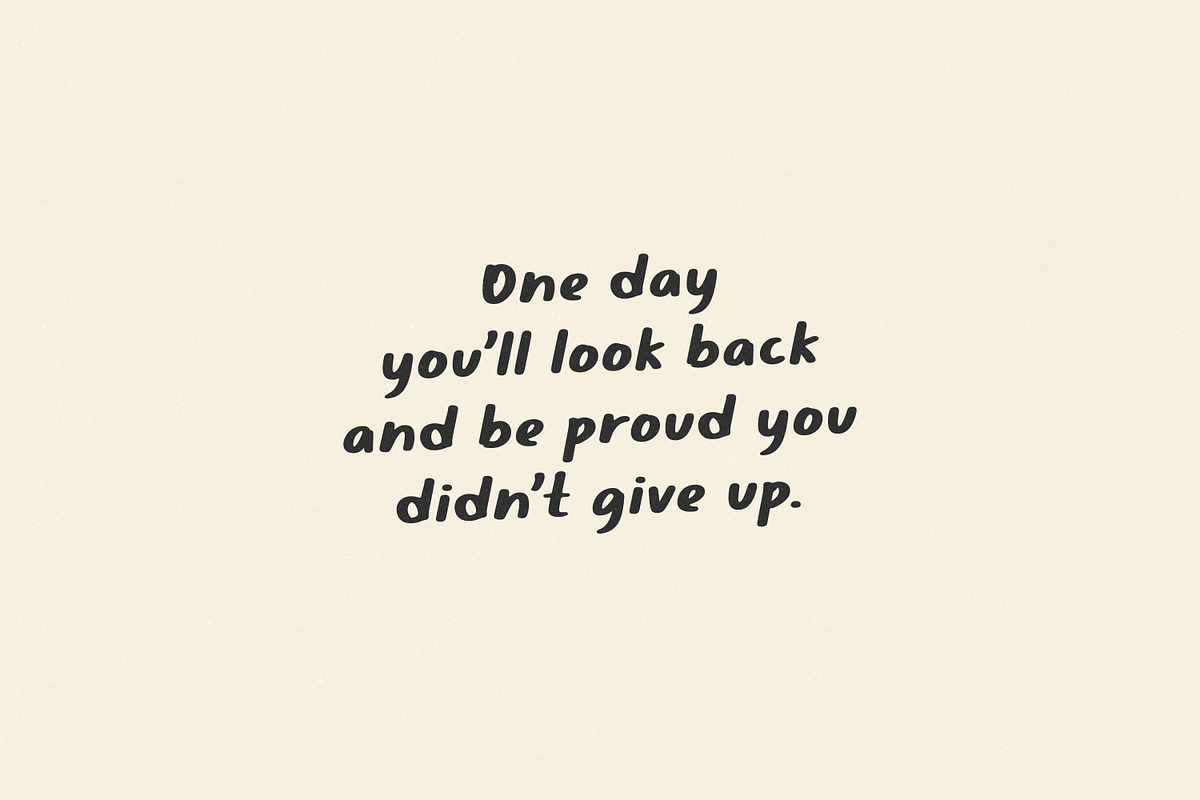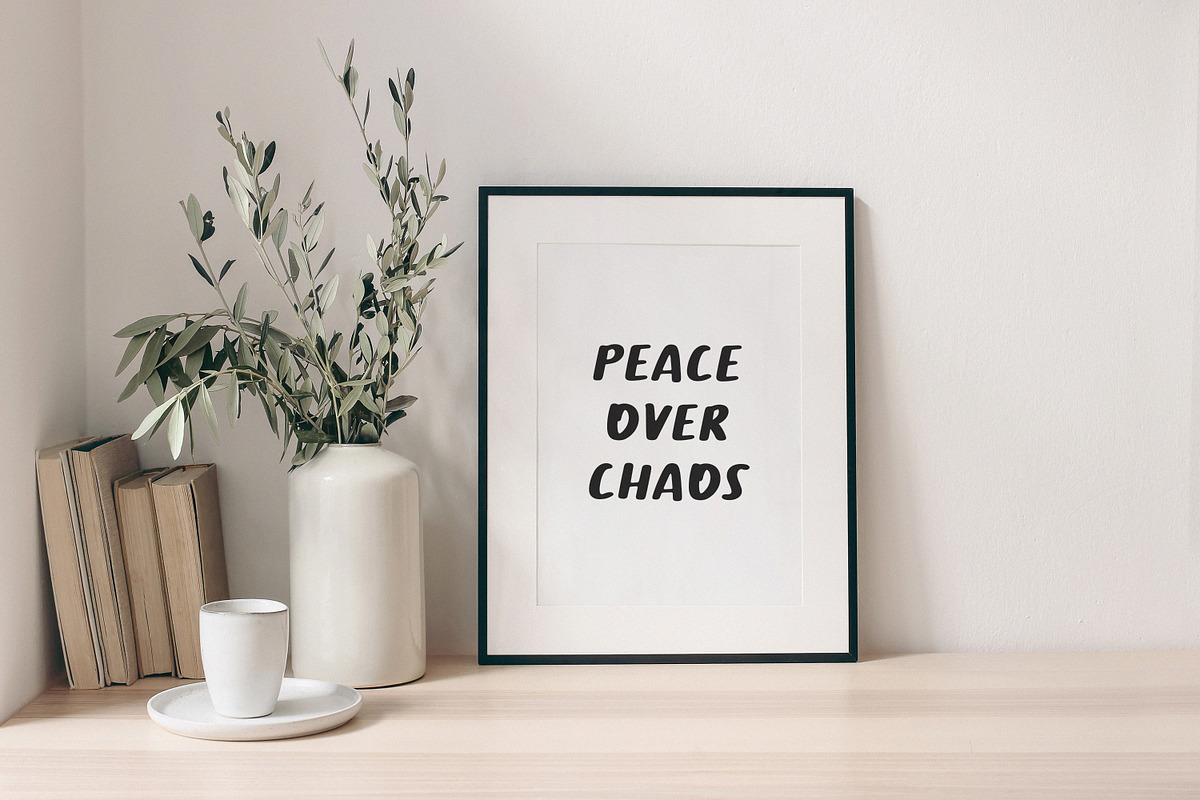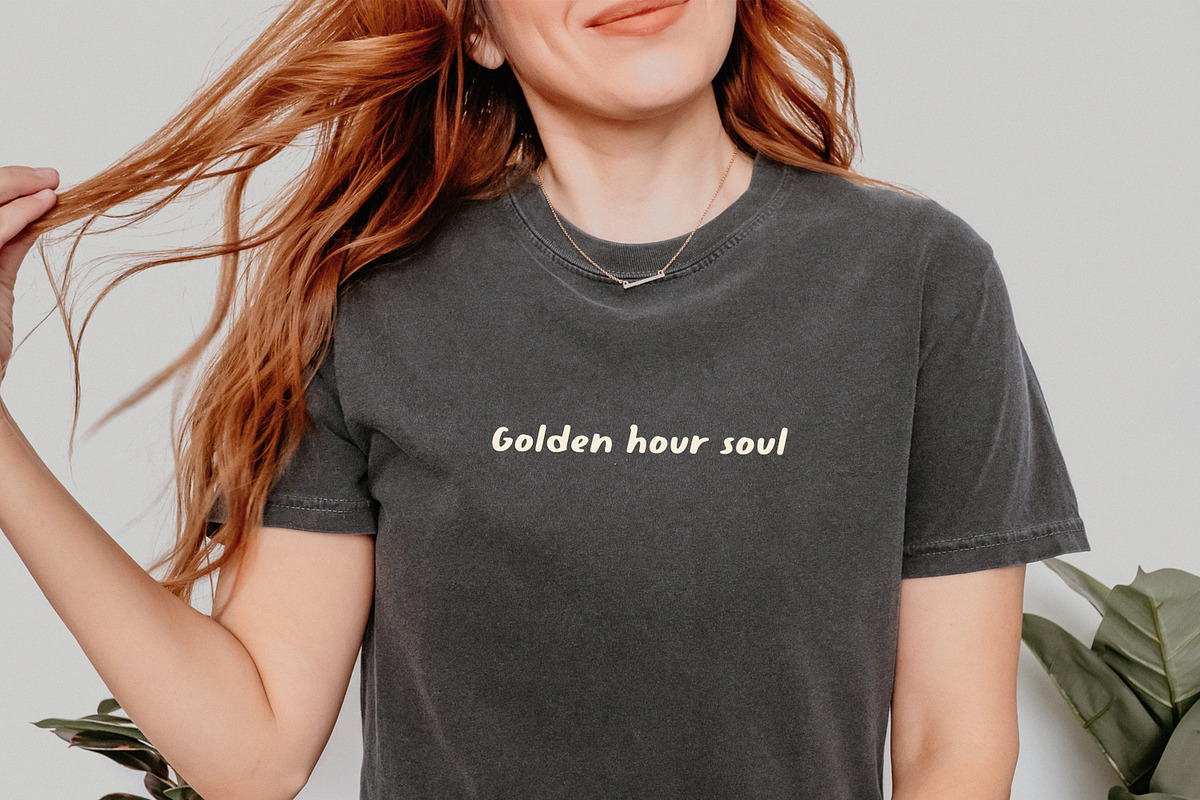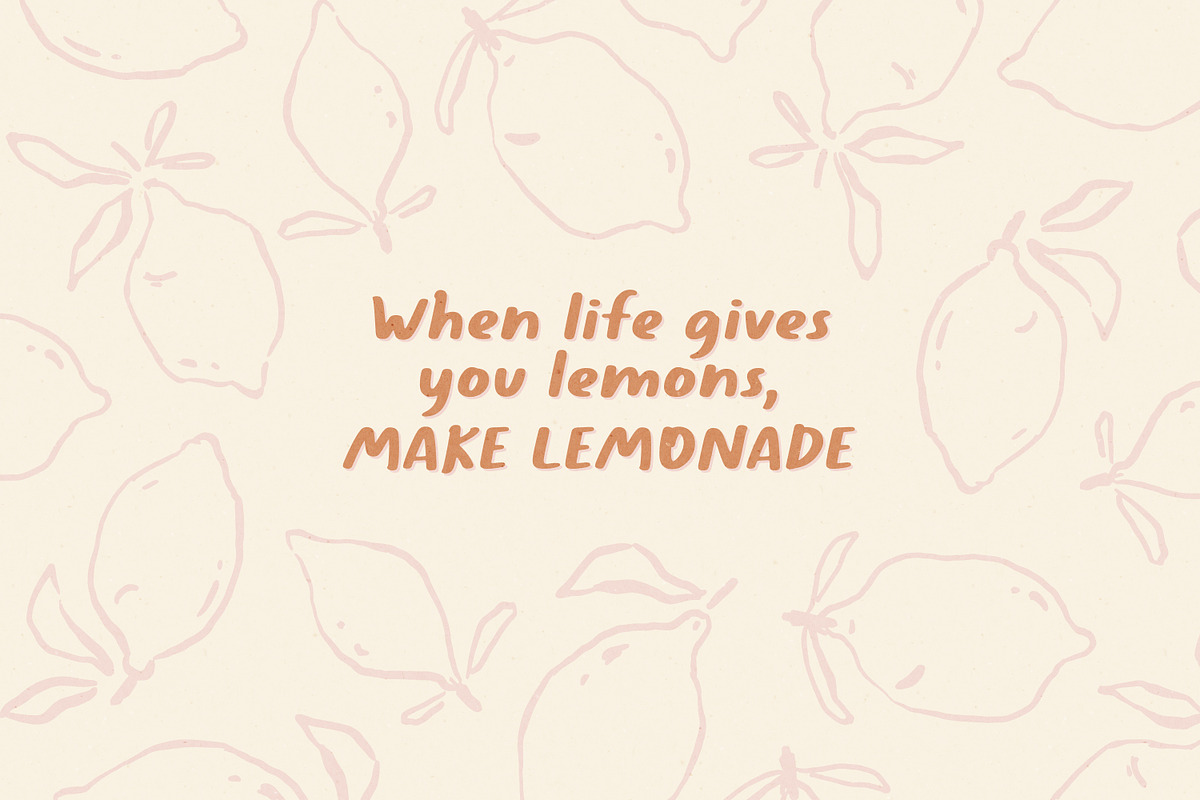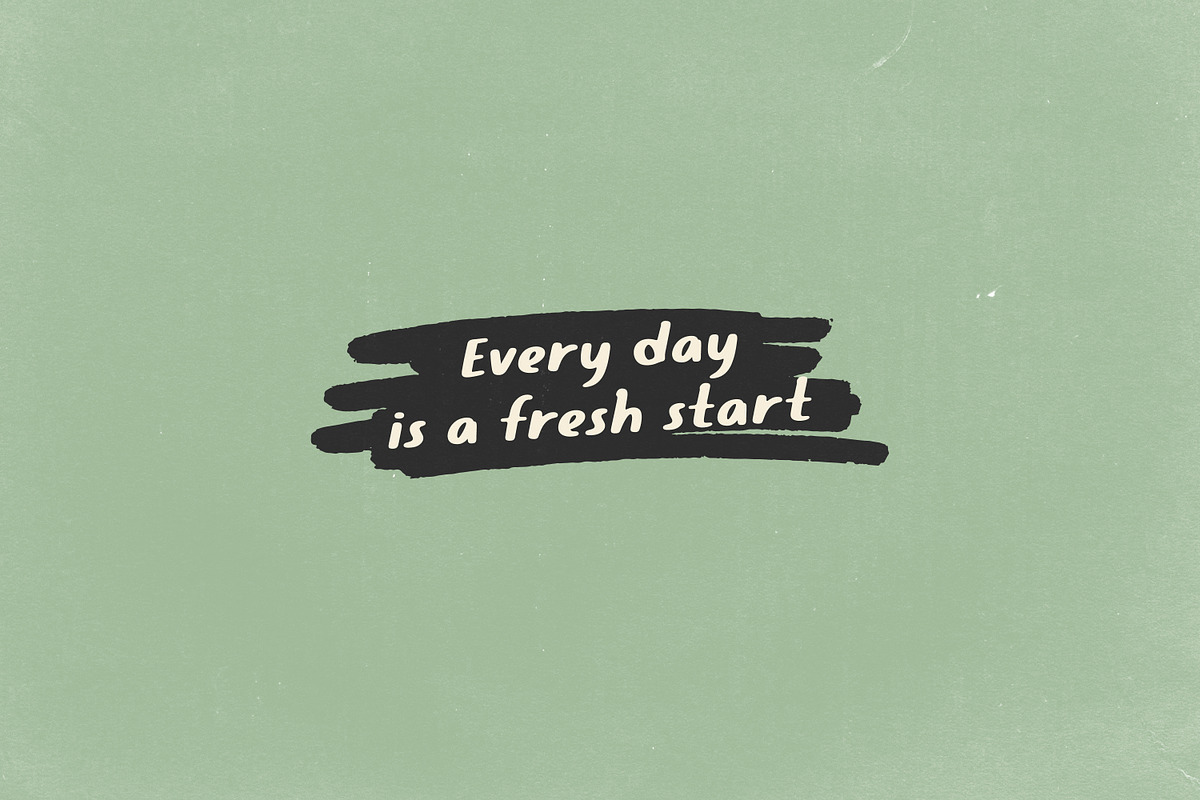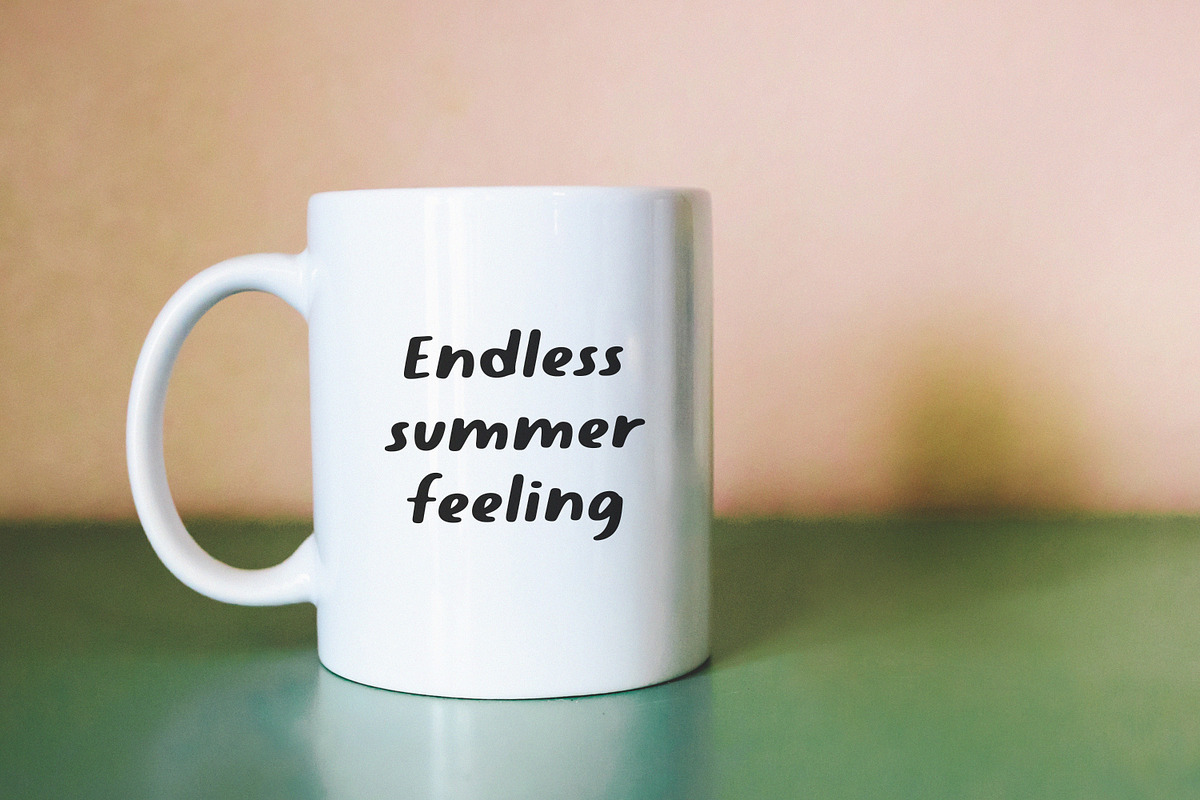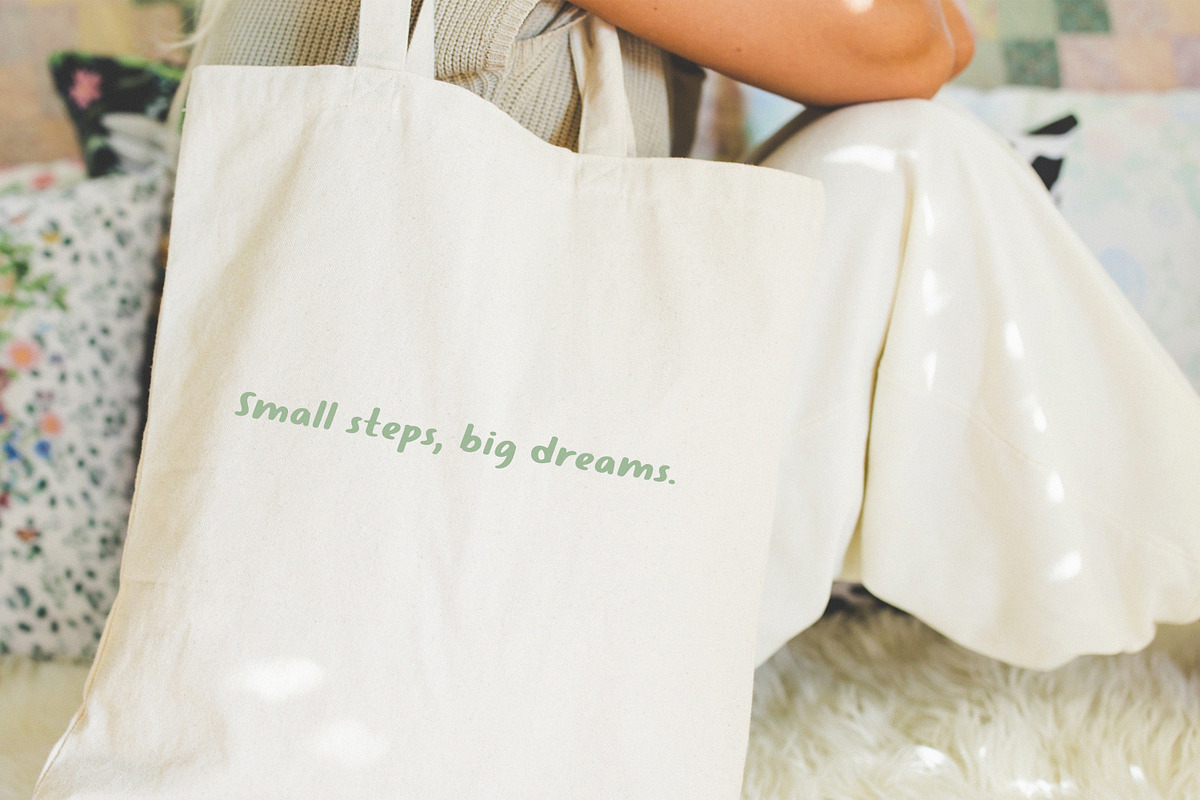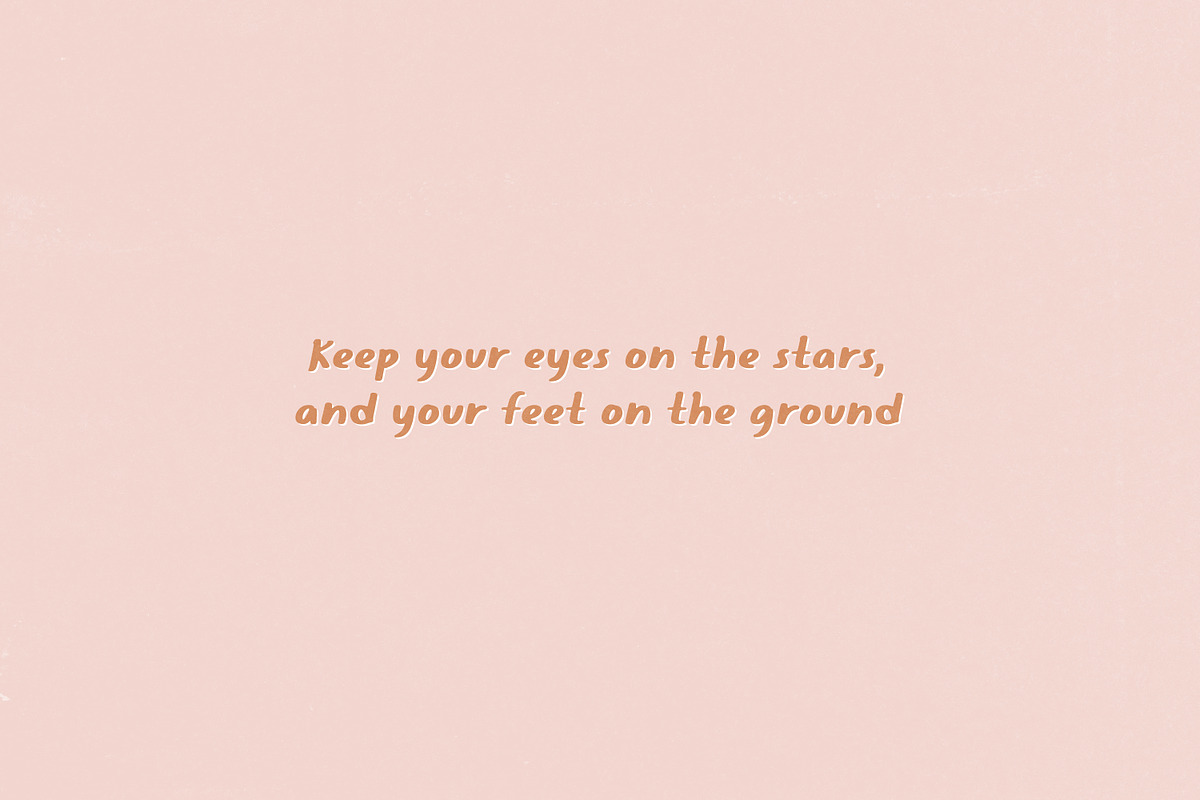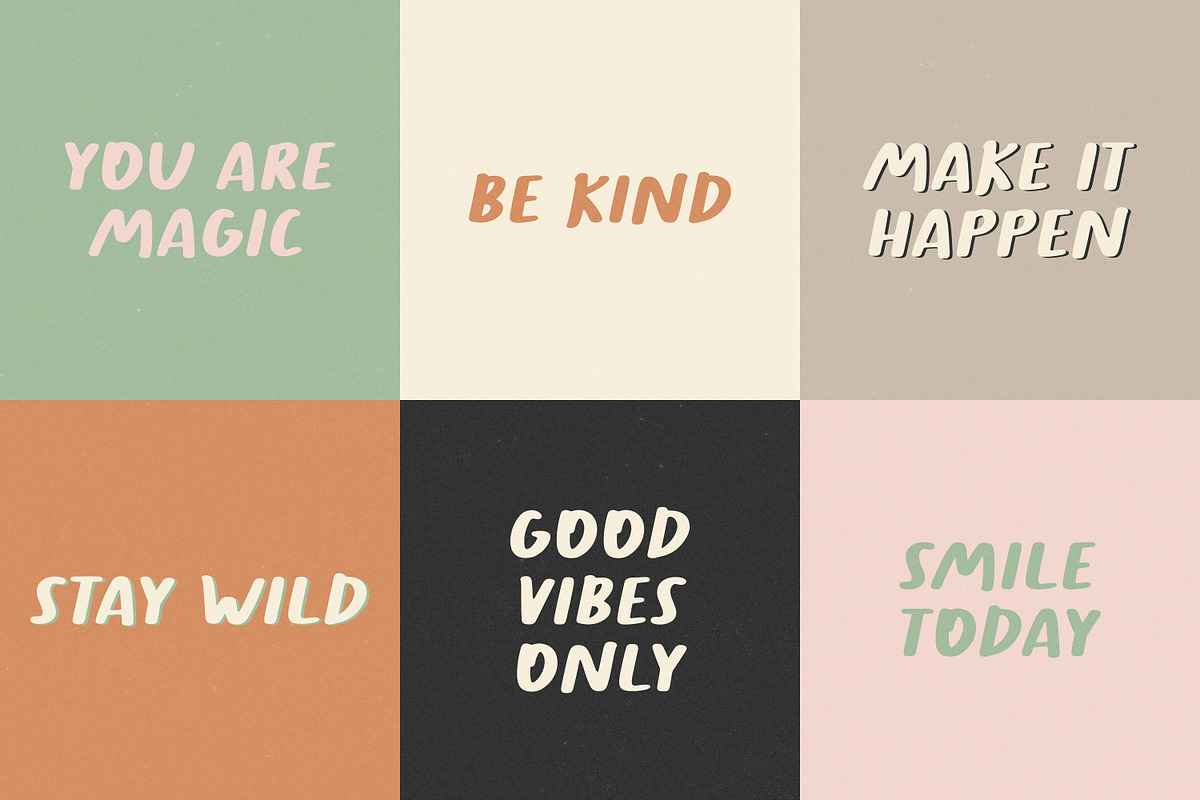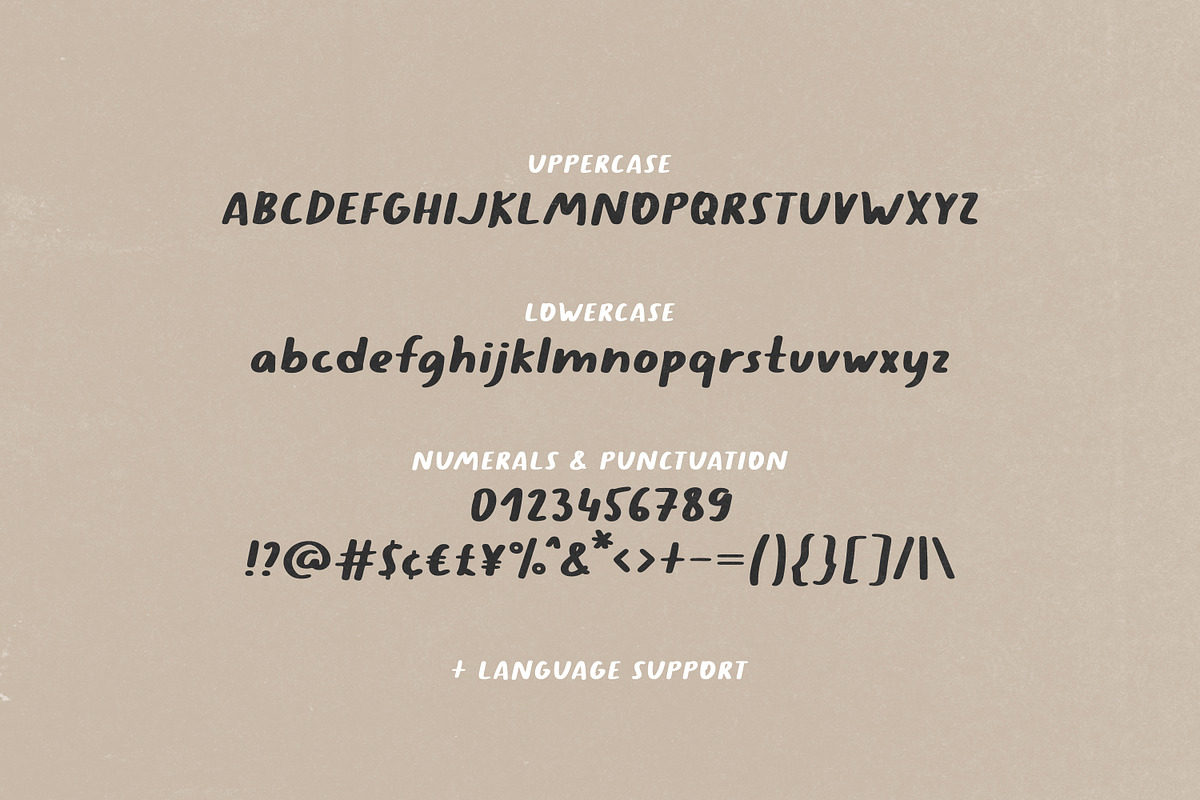
Always Dreaming - Lovely Brush Font
Always Dreaming is a lovely handwritten brush font with a retro vibe. Perfect for logos, branding, packaging, apparel, cards, posters, stickers, quotes, social media posts and more!